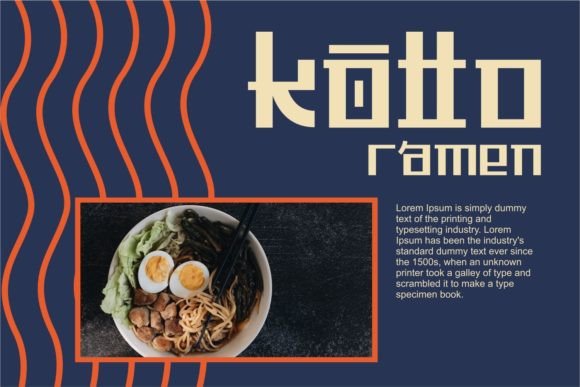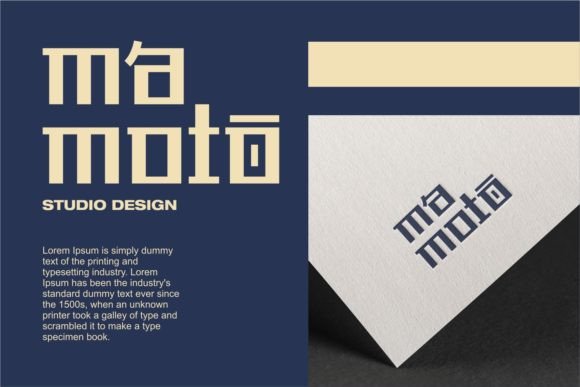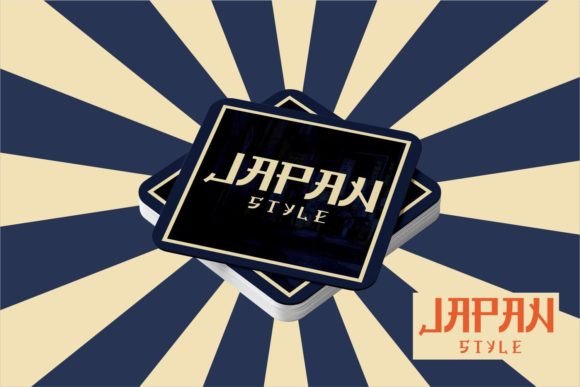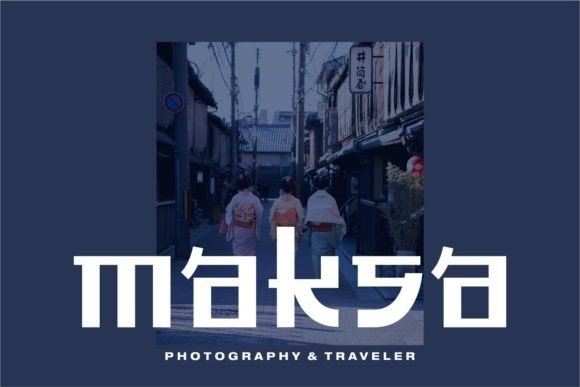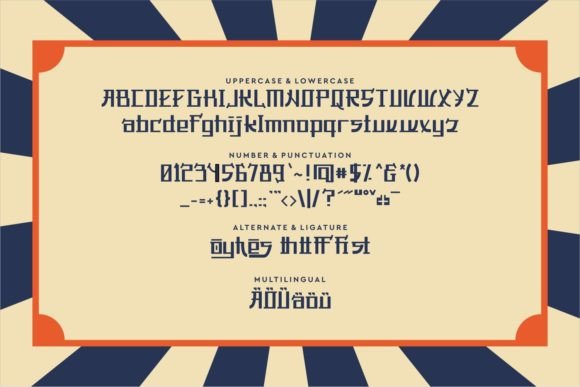
Introduction to Ogimasta Font
Ogimasta is a fresh and unique display font inspired by Japanese culture.
Contemporary and cool, it is perfect for any design you wish to create Add it to your creative projects and make them outstanding.
Key Features of Ogimasta Font